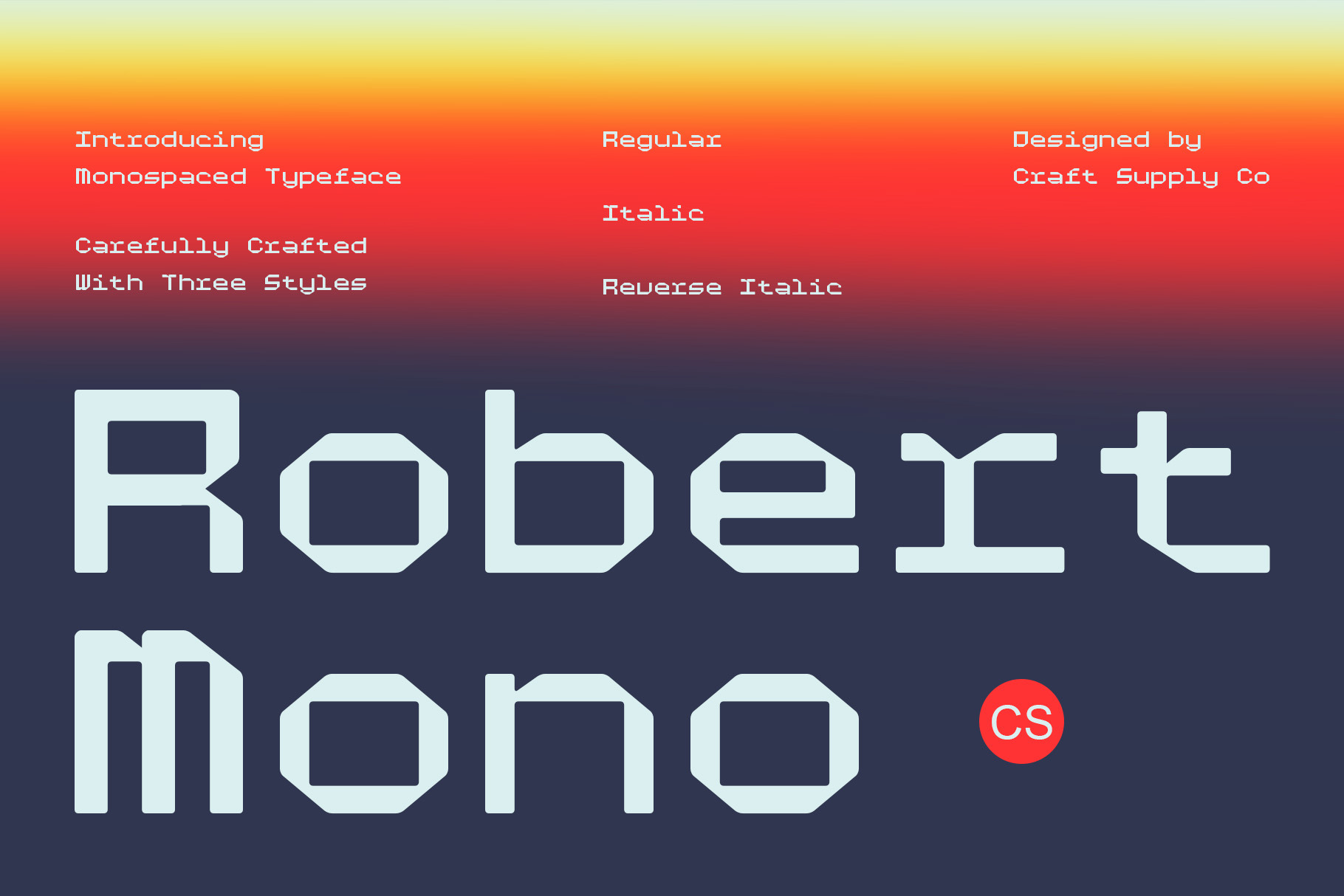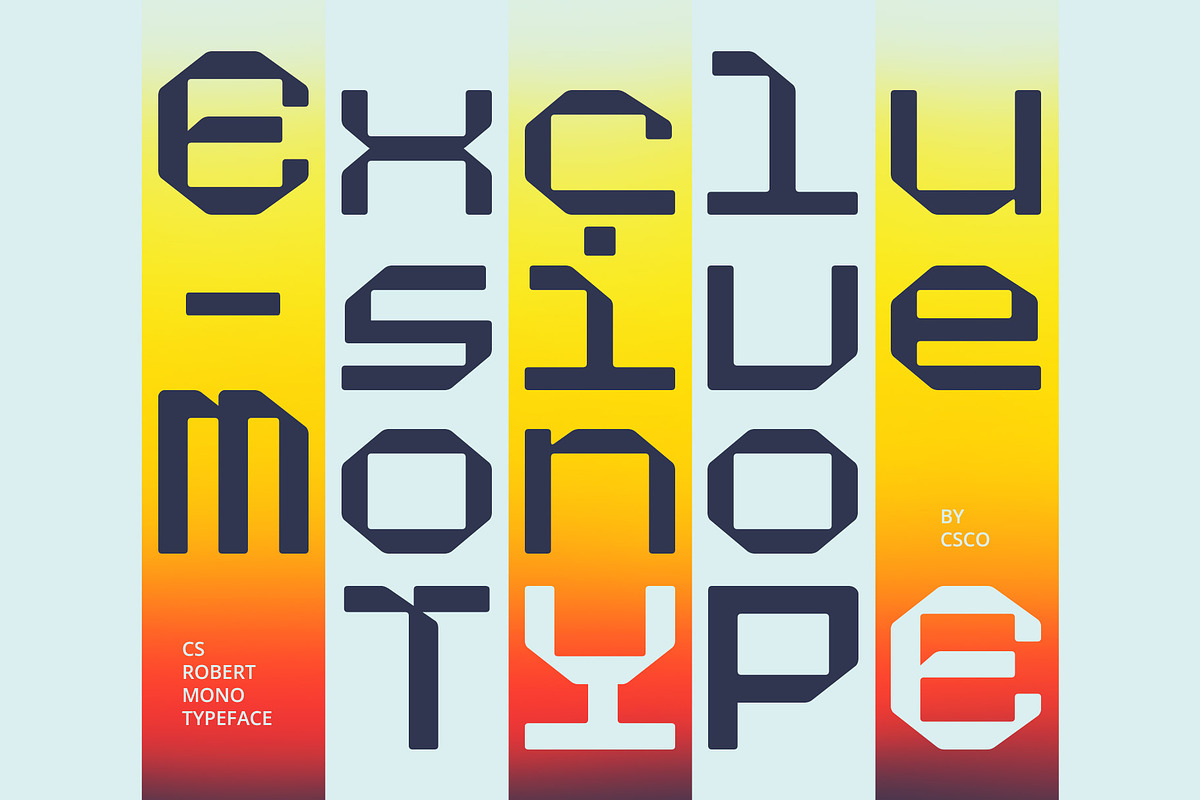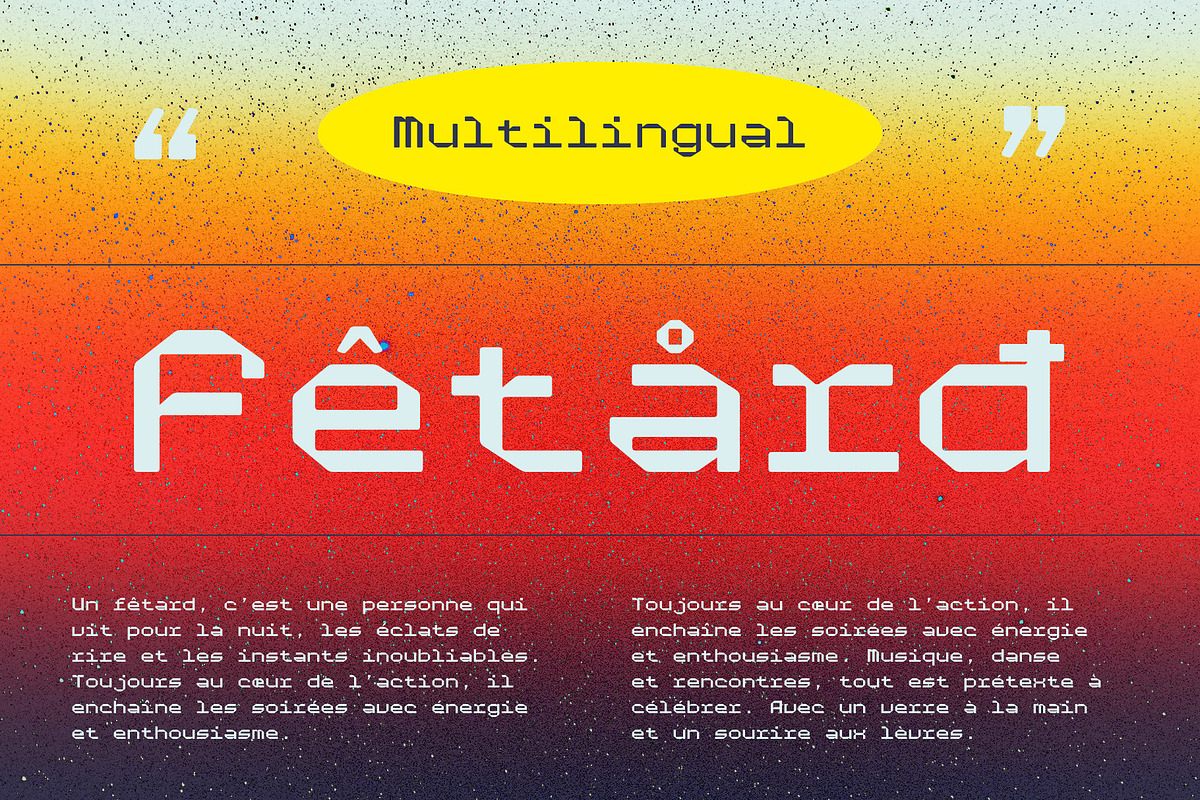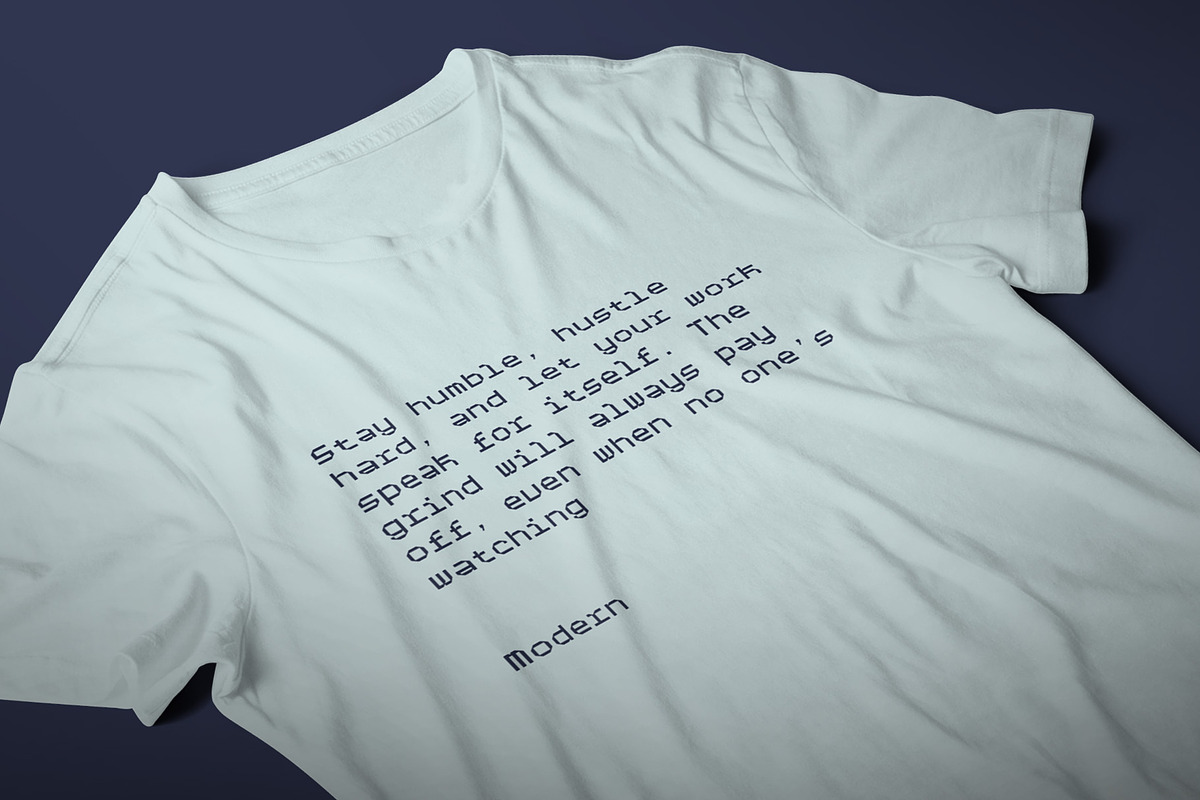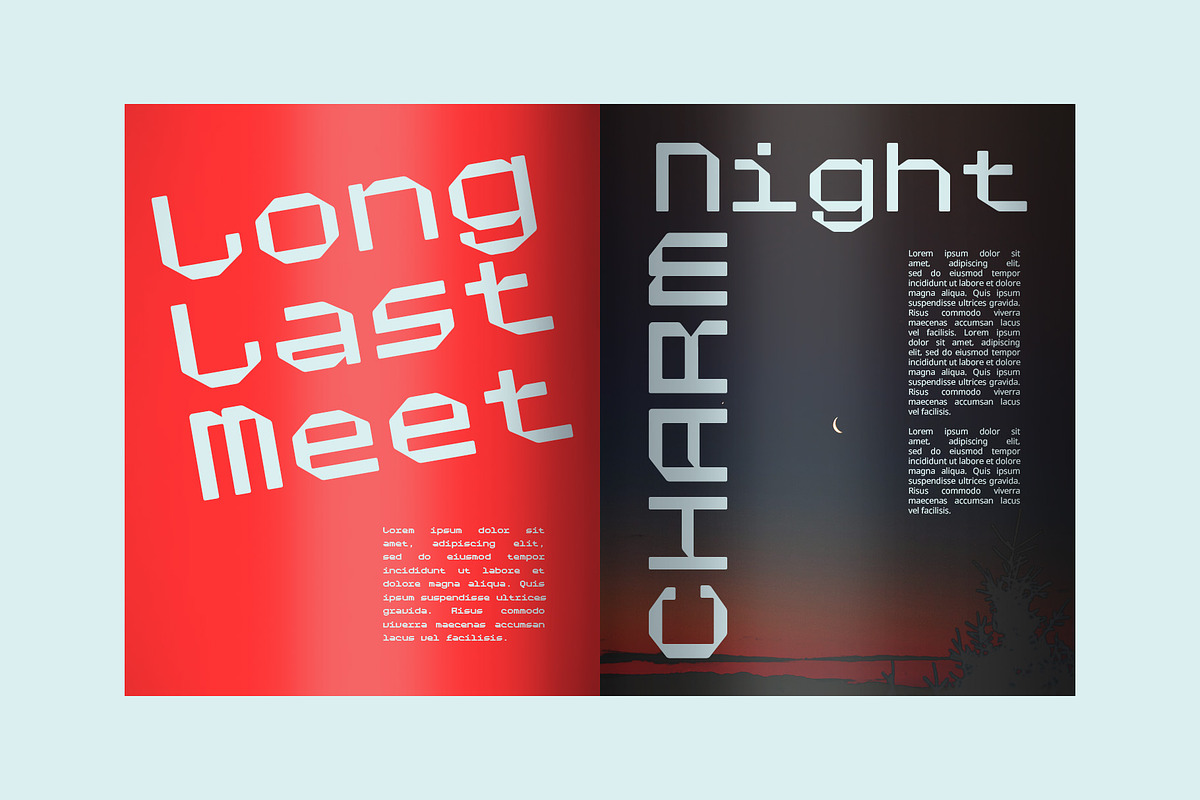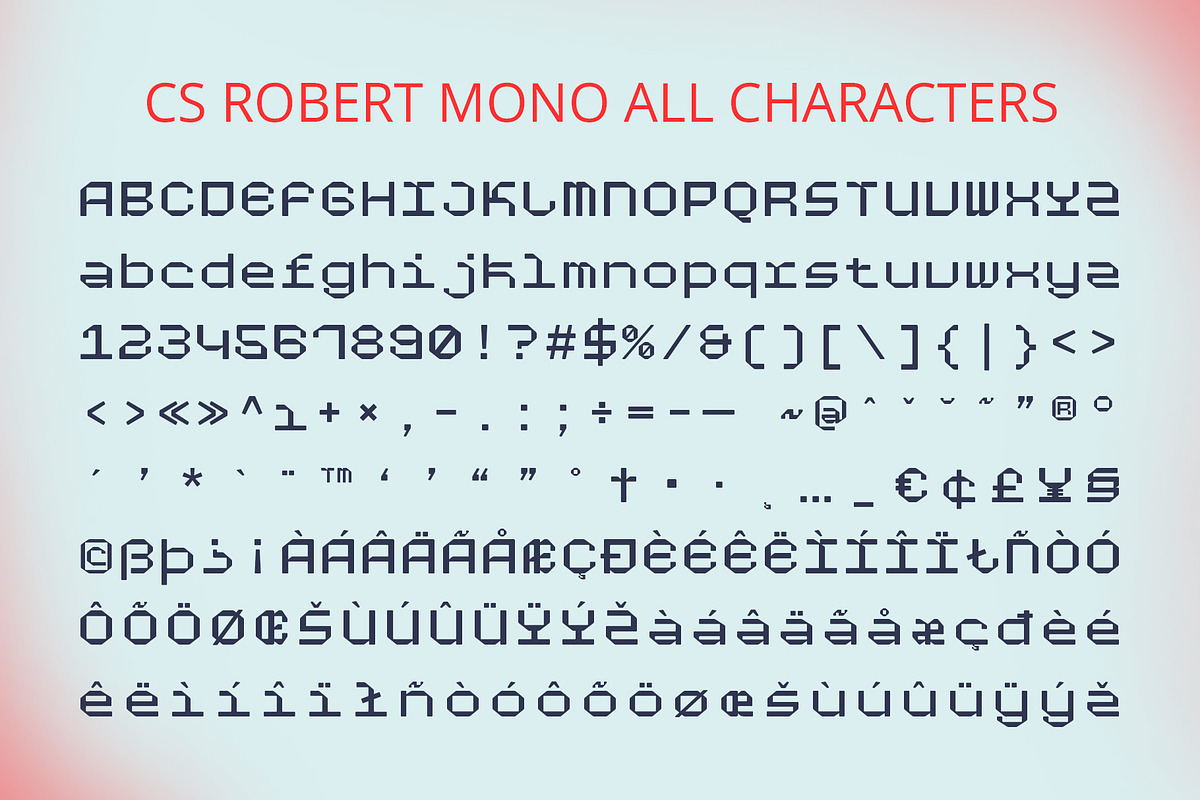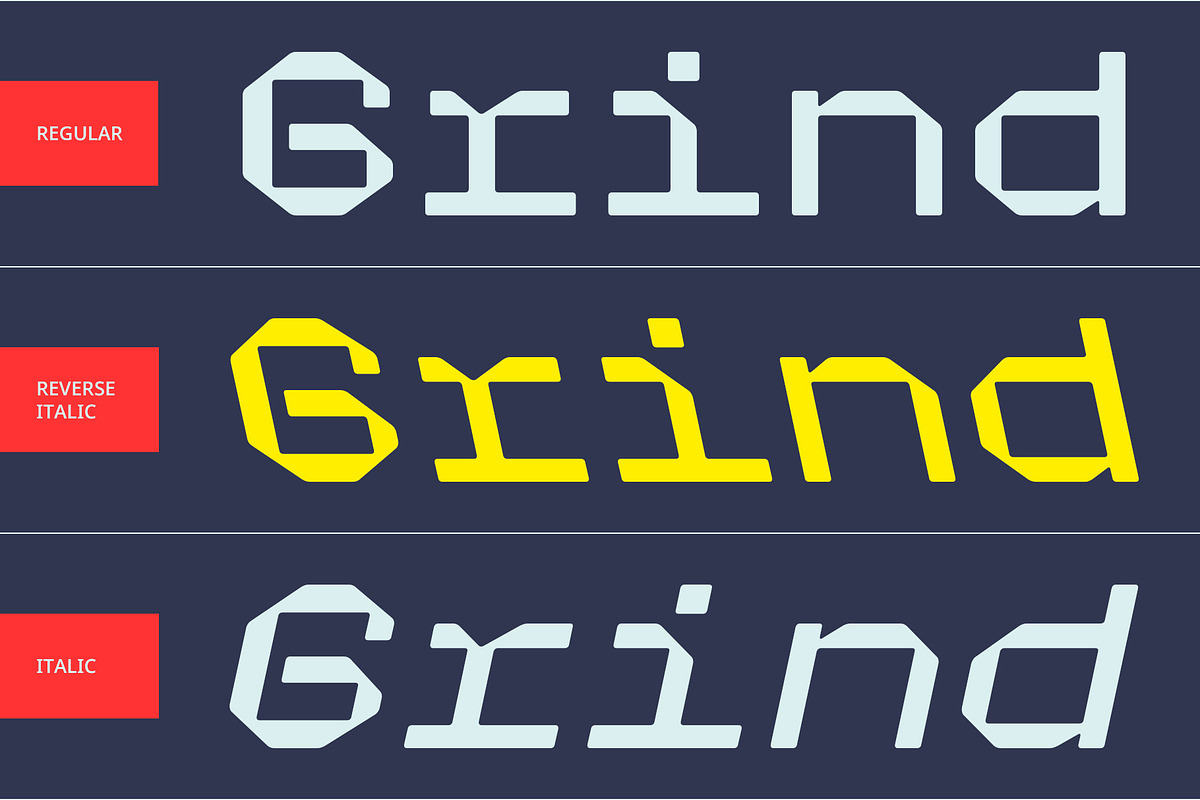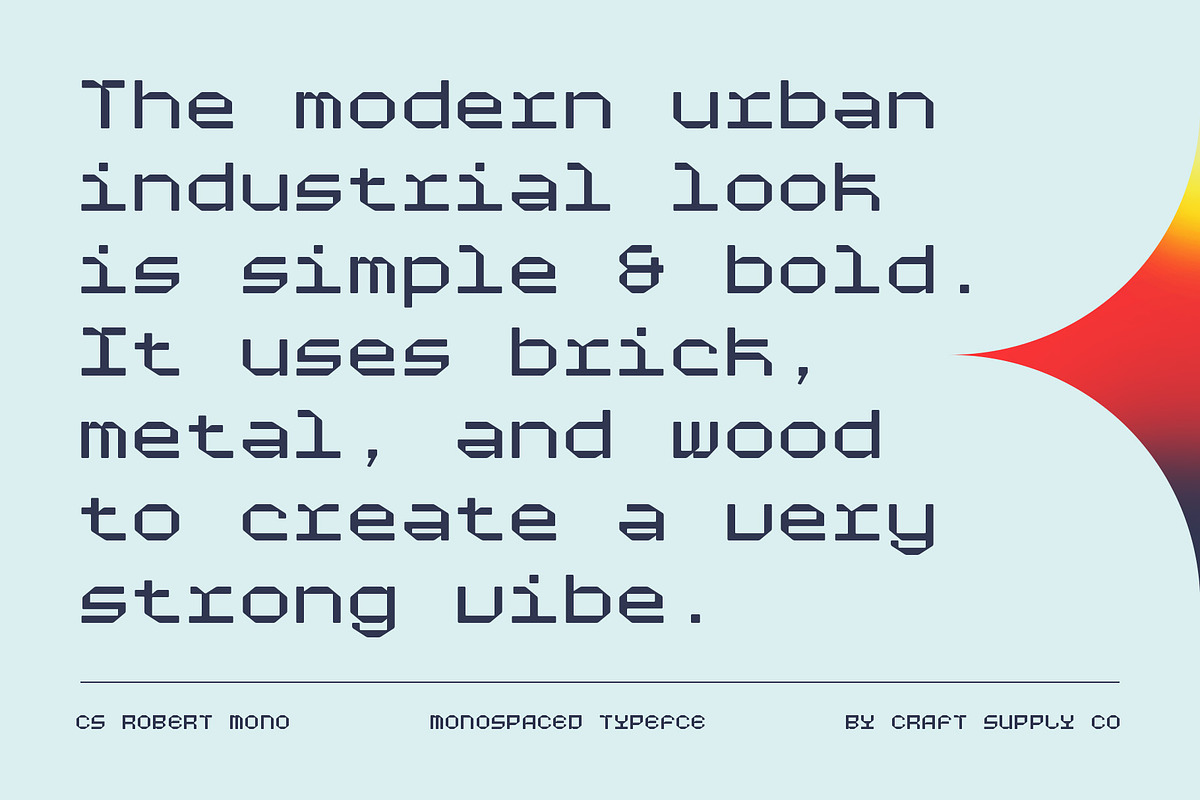
CS Robert Mono – Monospaced Font
CS Robert Mono – Monospaced: A Perfect Fusion of Pixels and Precision
Monospaced Precision Meets Pixelated Charm CS Robert Mono is a display font that marries the retro appeal of pixel art with the structured uniformity of monospaced typography. Each character is crafted from small, square pixels and set to an equal width, evoking the aesthetics of classic computer interfaces and early video games. This combination creates a harmonious blend of nostalgia and technical precision, making it both playful and practical.
Retro and Digital Appeal The pixelated design brings to mind the early days of computing, with its sharp, grid-based look reminiscent of vintage computer screens and classic 8-bit games. Paired with the monospaced format, it ensures a clean, orderly appearance that resonates with both digital nostalgia and modern technical sensibilities.
Versatile and Functional The structured, monospaced design enhances readability and provides a systematic look, making CS Robert Mono ideal for technical applications, coding visuals, or designs requiring a clean, organized layout. Its pixelated charm also lends itself perfectly to projects celebrating gaming culture, retro technology, or futuristic themes.
- CS Robert Mono Regular
- CS Robert Mono Italic
- CS Robert Mono Reverse Italic